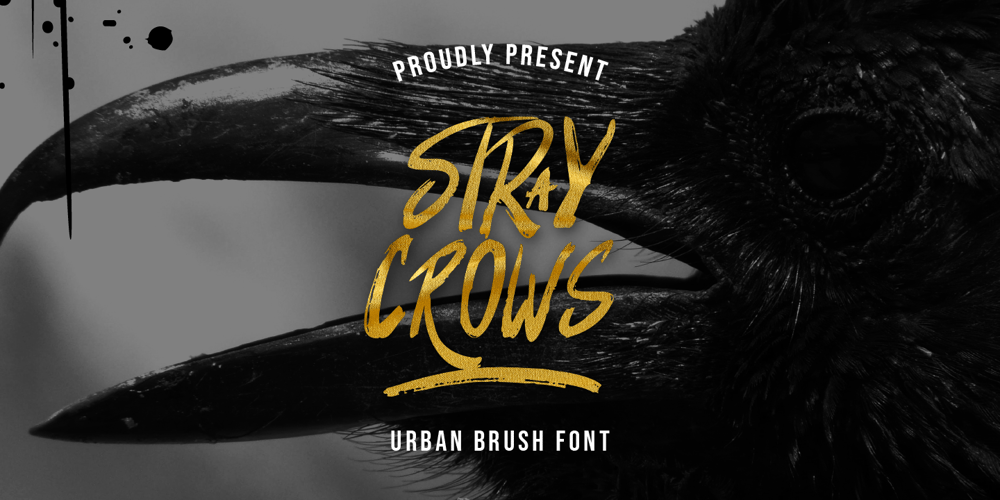
Stray Crows Font Family was designed by published by Sinaelgifont. Stray Crows contains 1 styles and family package options. Stray Crows – Urban Brush Font – Logo and Branding Food & Gym FontStray Crows is perfect for your upcoming projects such as logo branding, editorial design, e-sport design, Fitness Gym Branding, game/gaming industry, food, horror, podcast, music poster, website design, modern advertising design, poster quote, book/cover title, special events and any more.